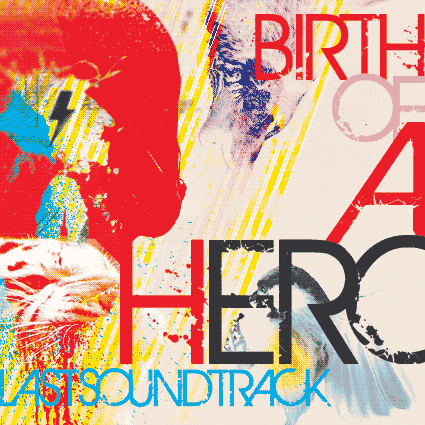
Font Update: Birth of A Hero
Another nice font release from Gyom over at Last Soundtrack has hit the web. I’m a loyal fan of Gyom because he consistently releases great fonts, and all he requires for a commercial (full) license is a donation in the amount of your choosing! To me, Birth of a Hero seems to be geometric and grungy at the same time, which could prove quite useful in certain applications. See what you think, and maybe download it and keep it in the bag for later.
Birth of A Hero also has plenty of the extra characters that most free fonts fail to deliver. Here’s a quick look at the main character set:
It is basically just ITC Avant Garde by Herb Lubalin designed for the magazine Avant Garde. The only thing is that it is often difficult if not impossible to find it with the alternate ligatures/figures which have the interesting angles.
I wish this weren’t distressed, because it would be more useful that way but either or it is always interesting.
@verman: Thats exactly the first thing that sprung to my mind: Avant Garde… but hey, it looks awesome and it has that grunge look already built in.
same here, Avant Garde with grungy look.
Hi! somebody knows where i can get a clean version of this font?? avant garde is not really the same.
A clean version of this font is Avant Garde Alternate which is a pay font
Nice font – it’s like a dirty Avante Garde with different slants. Good job, though. Very 70’s… I suppose, since the Avante Garde font (difinitive 70’s style.) That font has become very famous, even amongst circles that don’t know much about design. Birth of a Hero looks like a great font, I think a nice twist has been added by making it a ‘dirty’ font. Some of the letters look a little different, or function differently, but it certainly has some excellent uses and goes in the bag of excellent free fonts. Thank you!